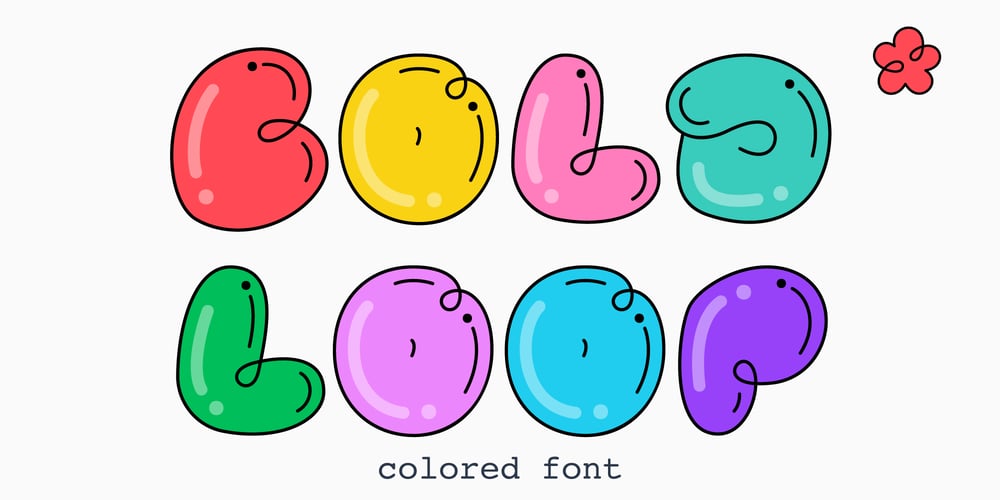
Bold Loop Font Family was designed by Roman Korolev and published by Kaer. Bold Loop contains 6 styles and family package options. Here is my new font family Bold Loop. The symbols are made of overlapping lines in a childish style. Ideal for colorful applications, children’s design, bright advertising, mosaic packaging, multimedia identity.—*You can use color fonts in PS CC 2017+, AI CC 2018+, ID CC 2019+, macOS 10.14 Mojave+ **Please note that the Canva & Corel doesn’t support color fonts!**Please download this test file with only ABC letters ( https://www.dropbox.com/s/vvxws9jffocet5t/BoldLoop-Test.otf?dl=0 ) to check your app & system.*—If you have any questions or issues, please contact me: kaer.pro@gmail.com Best, Roman.